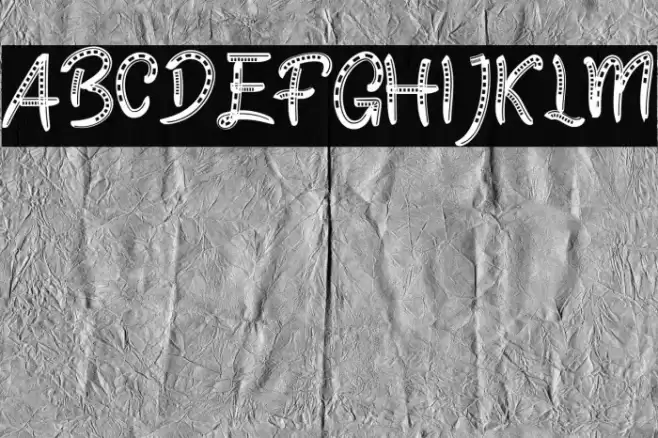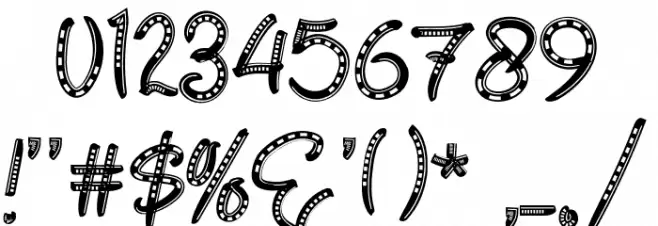
HollaRollaRegular Font
HollaRollaRegular Description
This font features a playful and decorative style, characterized by its bold, hand-drawn appearance. Each letter is adorned with a series of dots or dashes along the inner edges, giving it a unique, whimsical look. The strokes are thick and consistent, providing a strong visual impact. The font maintains a casual and informal tone, making it suitable for creative and fun projects. Its distinctive style is eye-catching and memorable, perfect for designs that aim to stand out.
A playful, decorative font with bold, hand-drawn letters featuring dotted embellishments from Decorative fonts.
- Proposed Projects: Ideal for children's books, party invitations, playful branding, and creative posters.